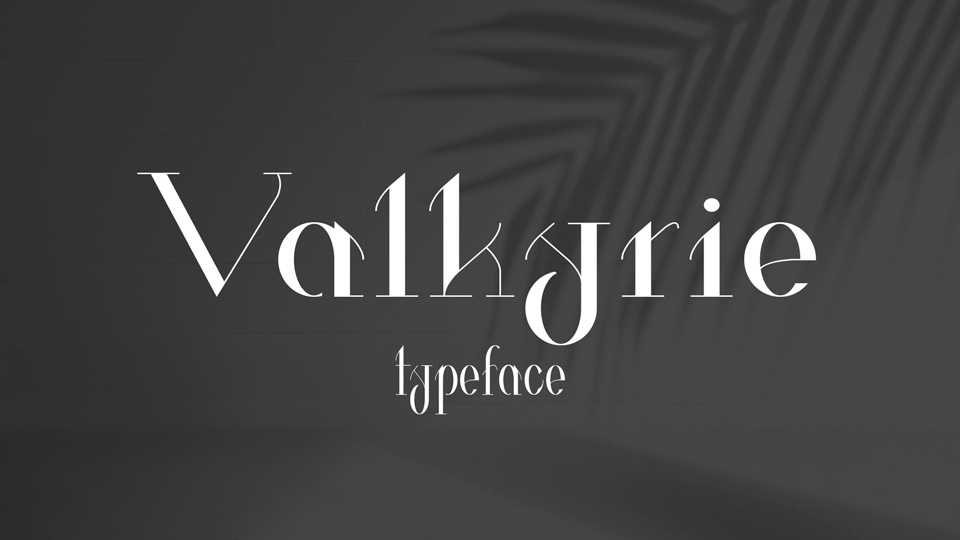
Download Valkyrie typeface, a serif font family with 12 fonts, based on thick and bold parts with geometrical elements in a modern style. Valkyrie designed mostly for top fashion brands and designers.
Designer: Hendrick Rolandez